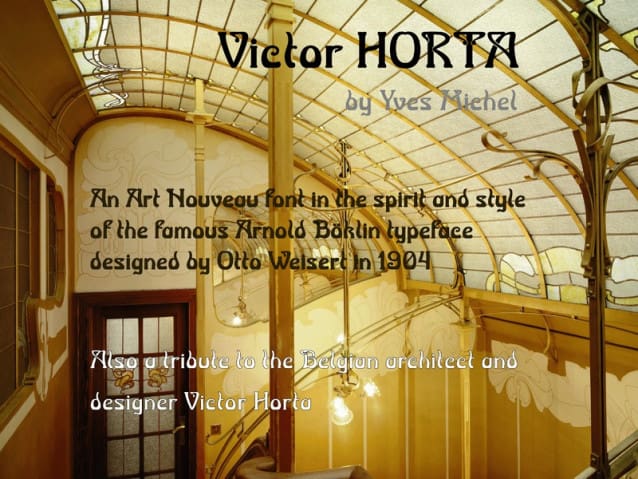
Victor Horta Font a typeface in tribute to Victor Horta, famous Belgian architect and designer, one of the founders of the Art Nouveau movement. In the spirit and style of the Arnold Böcklin typeface designed by Otto Weisert in 1904.
| Designer Name: | Yves Michel |
| Classification: | Display Fonts, Retro / Vintage Fonts |